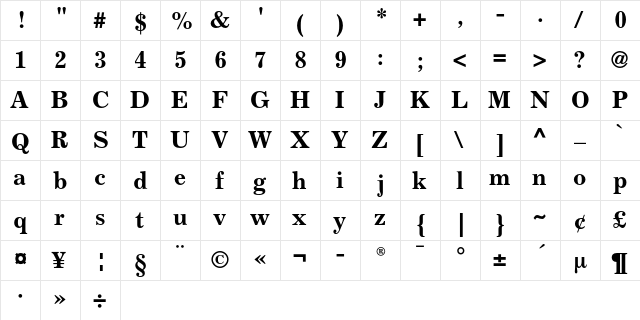
Excelsior Cyrillic Bold
Design Context for Excelsior Typeface
Excelsior is a composed and adaptable typeface that performs quietly and consistently across a wide range of design contexts. Its bold stroke weight gives it real presence on the page.